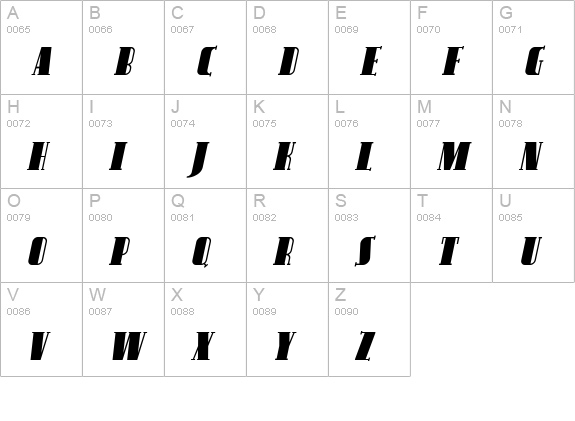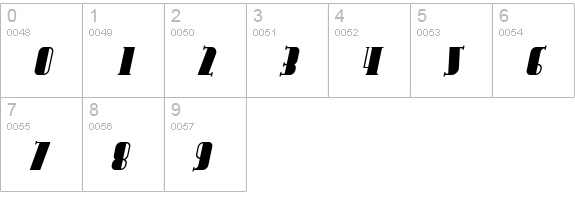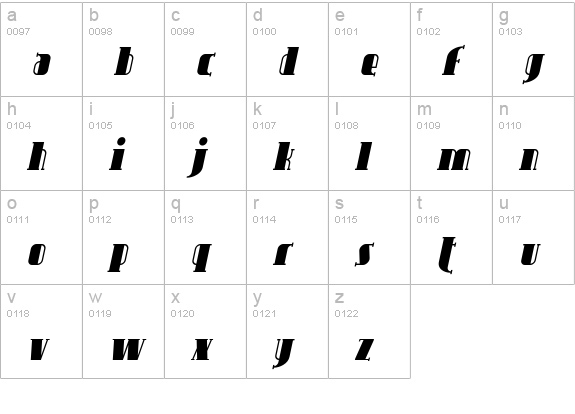
Avondale Italic is a distinctive, italic variant in the Avondale typeface family \xE2\x80\x94 well suited to design and typography projects.
Avondale Italic font is a modern and elegant typeface with a touch of sophistication. Its sleek and stylish design makes it perfect for a wide range of projects, from branding to editorial design. The italicized characters add a dynamic and artistic flair to any text, making it stand out from the crowd. The Avondale Italic font is versatile and can be used for both headings and body text, bringing a sense of class and refinement to your designs. Its smooth curves and flowing lines create a sense of movement and energy, adding a touch of creativity to any project. Best of all, the Avondale Italic font is completely free to download at FontsMarket.com. You can easily access this stunning typeface and enhance your designs with its unique charm. Don't miss out on the opportunity to elevate your projects with the Avondale Italic font - download it now and unleash your creativity!